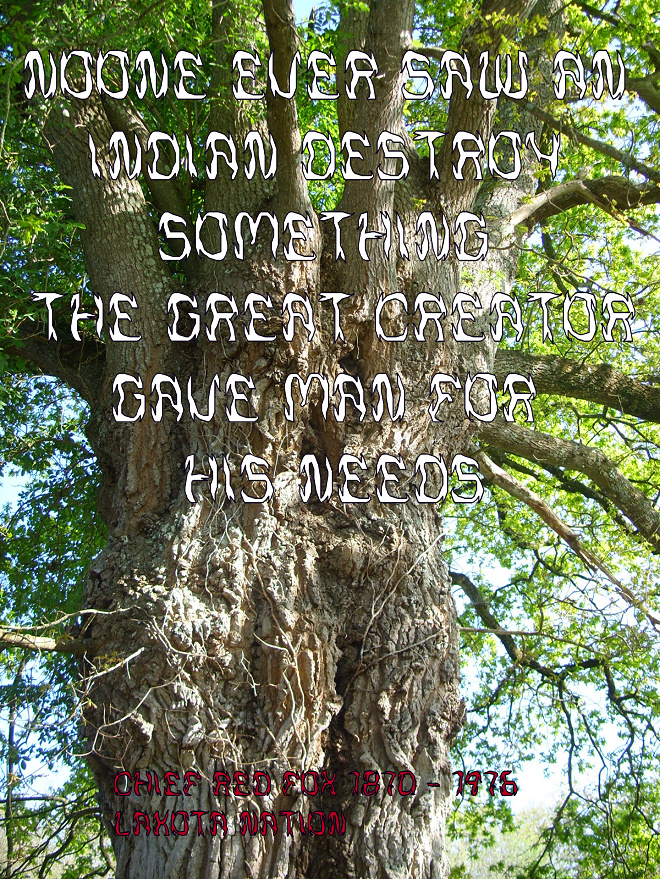
/pic from the film about Frutiger/
nice letters, Aeolien!
Geeez, did I seriously missed this gem you made !! (now I get why they call it a "hidden" gem, sorry lol)
This font looks so amazing, and even though its highly conceptual and unusual, I think it could serve a bunch of different themes very well.
Oh and,  I'm right there with you, fantasizing about a twilight forest walk, some last rays of distorted sunlight just barely breaching the canopy, listening to the mysterious changing breath of the forest and its dwellers changing to the nightshift.
Thank you Sed4tives :) It's a design I started years ago and added to occasionally, to relax with instead of  "to finish for publishing". But as I wanted a slightly mysterious design for a craftwork exhibition I decided to  finish this one as it seemed to fit the season around Hallow's Eve ...